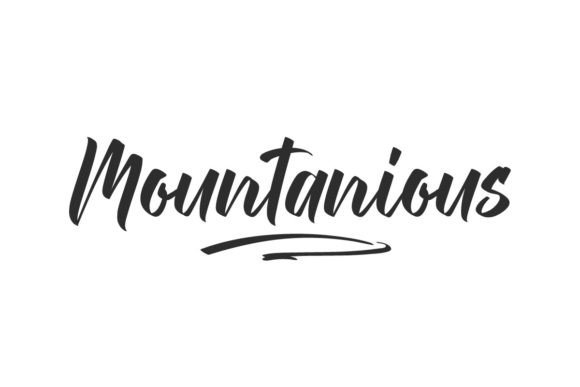
Embark on a calligraphic journey with Mountanious, a script font that captures the essence of beauty. Its elegant curves and delicate swashes create a visual symphony, transforming your designs into captivating masterpieces.
Mountanious is the perfect font for adding a touch of sophistication and charm to your creative projects. Whether you're crafting a stunning brand logo, designing a captivating brochure, or creating an enchanting invitation, Mountanious will elevate your words and make them shine.
With Mountanious, you can effortlessly create designs that exude elegance and allure. Its versatility shines across a wide range of applications, from ethereal wedding invitations to captivating signage. Let your imagination soar and watch as Mountanious transforms your ideas into breathtaking realities.
Experience the allure of Mountanious today and elevate your designs to new heights. Trust in the power of this font to make your words dance and your creations shine.